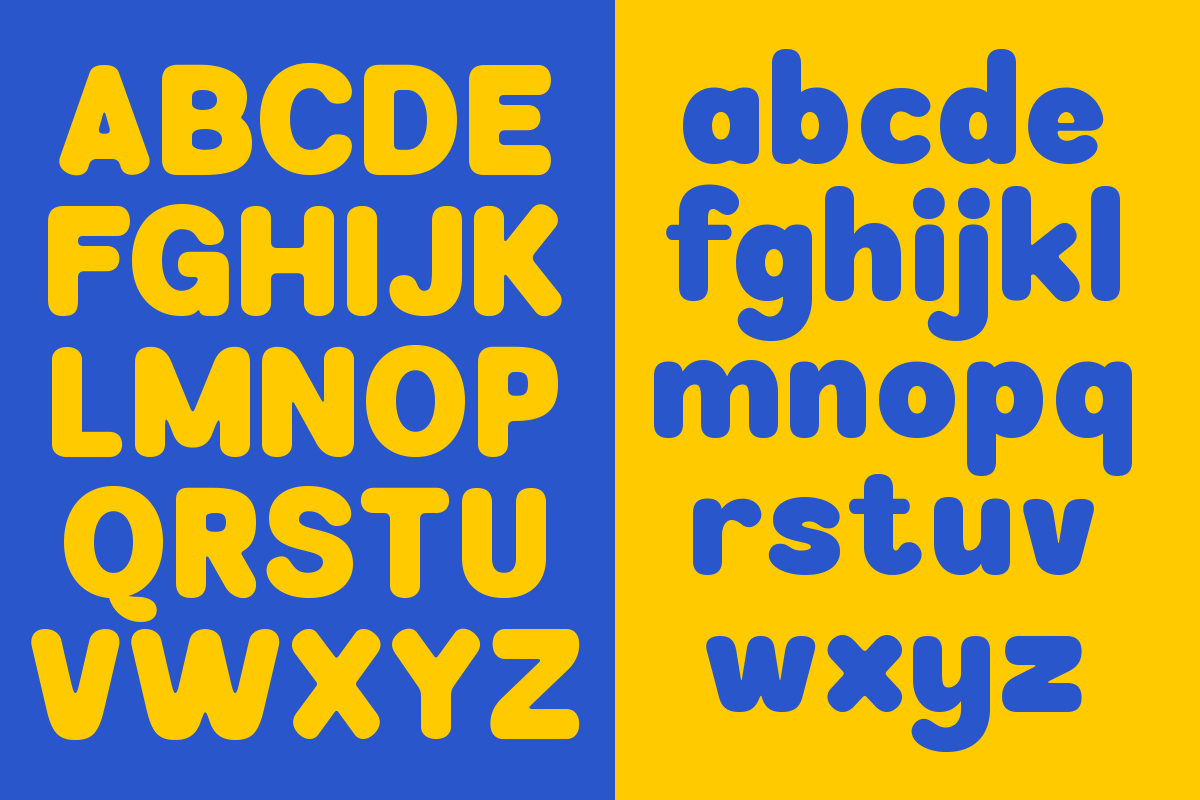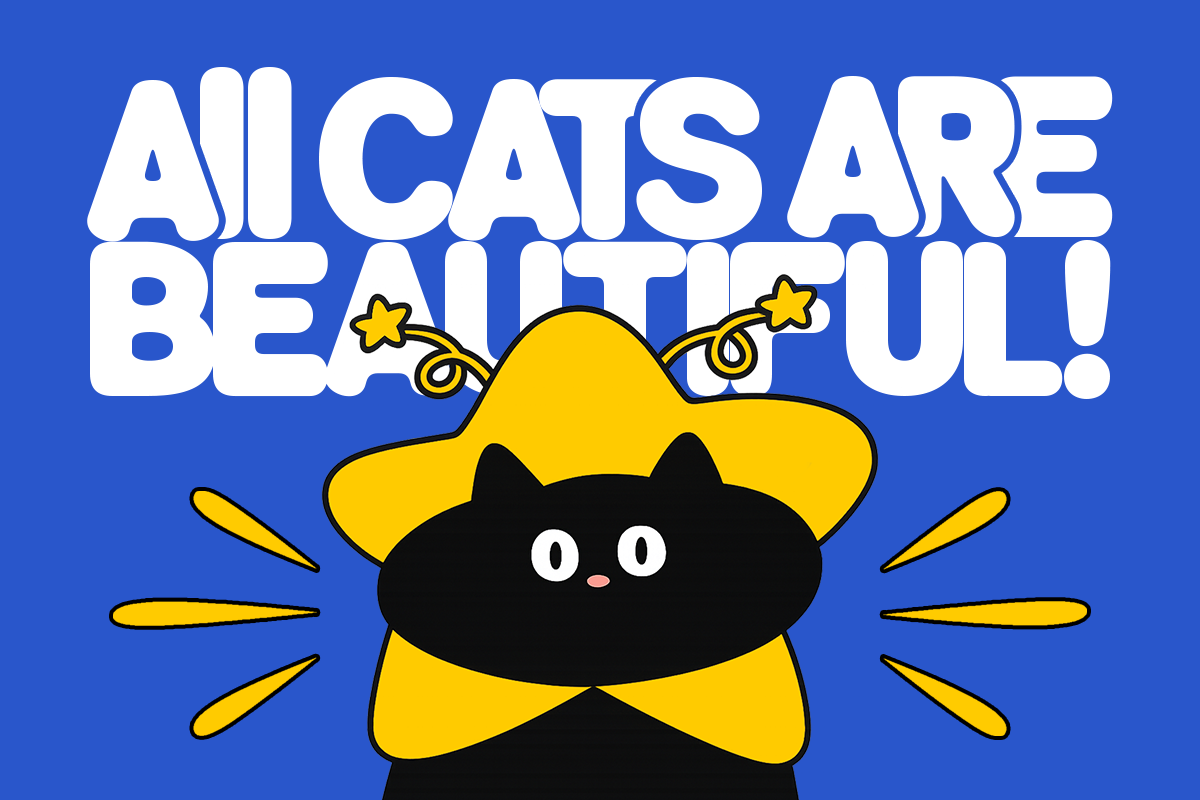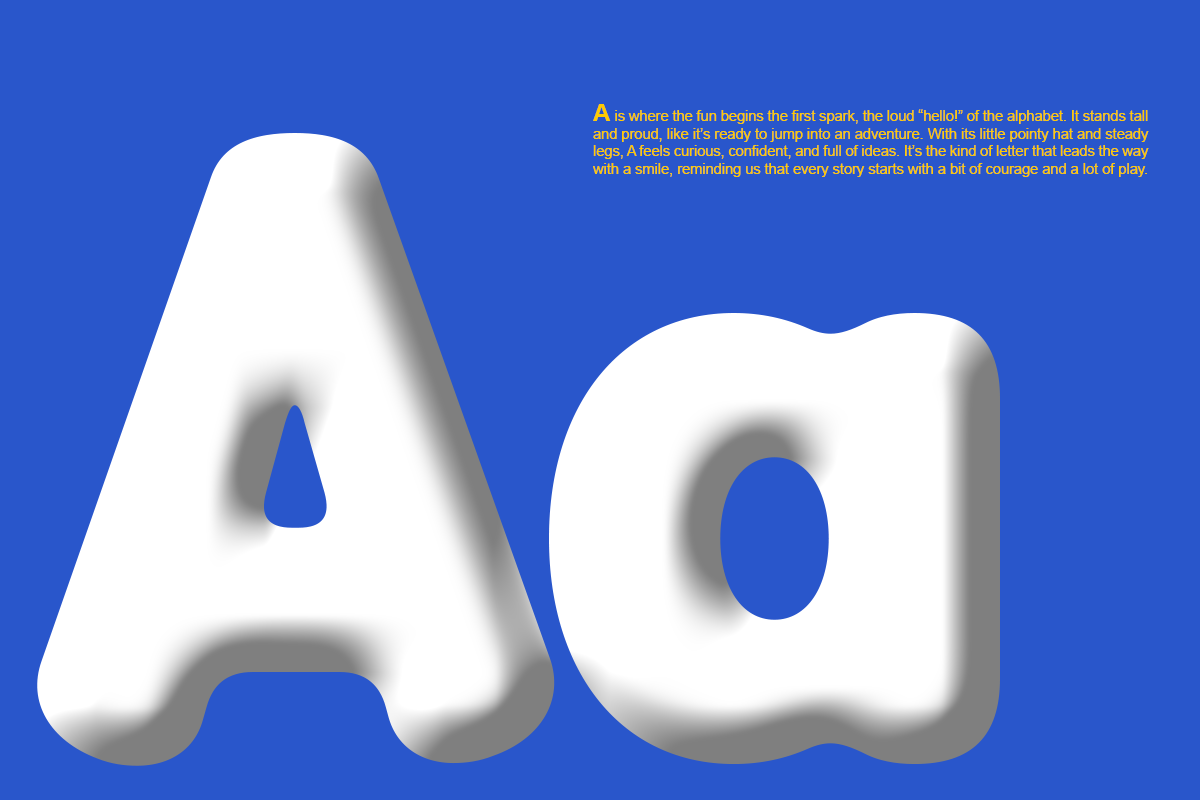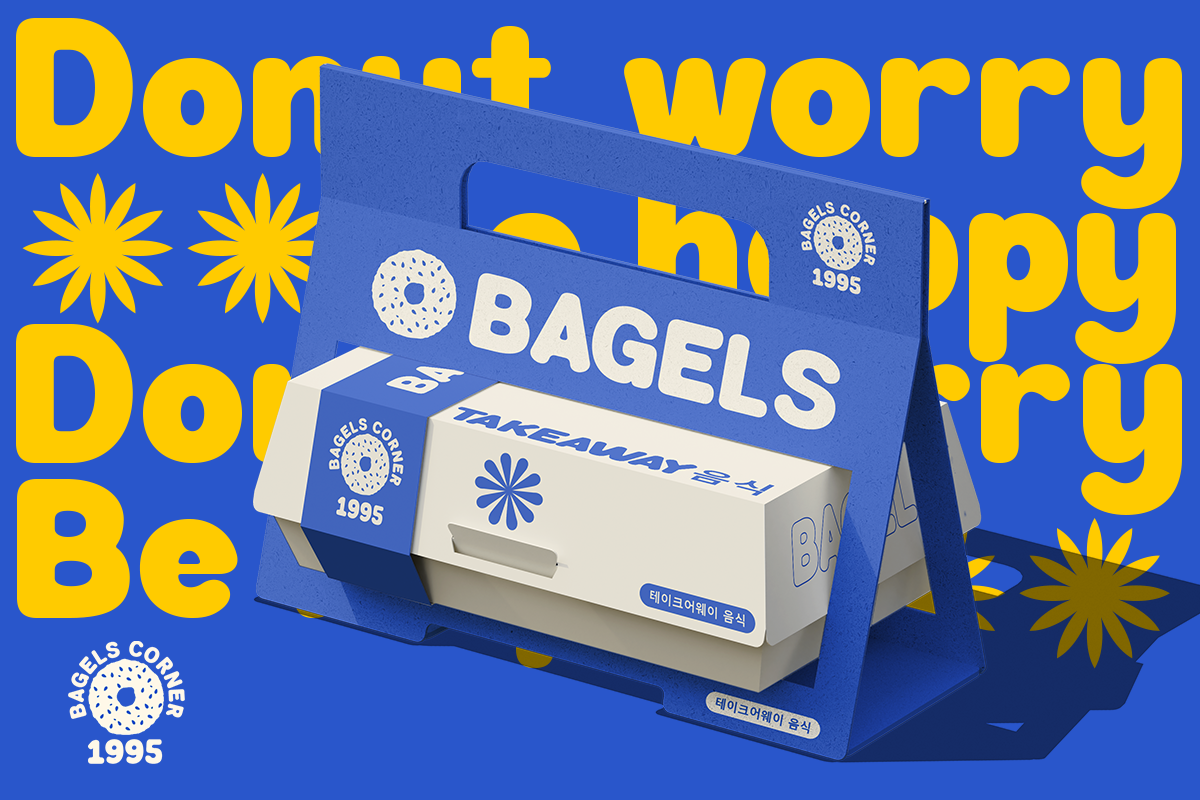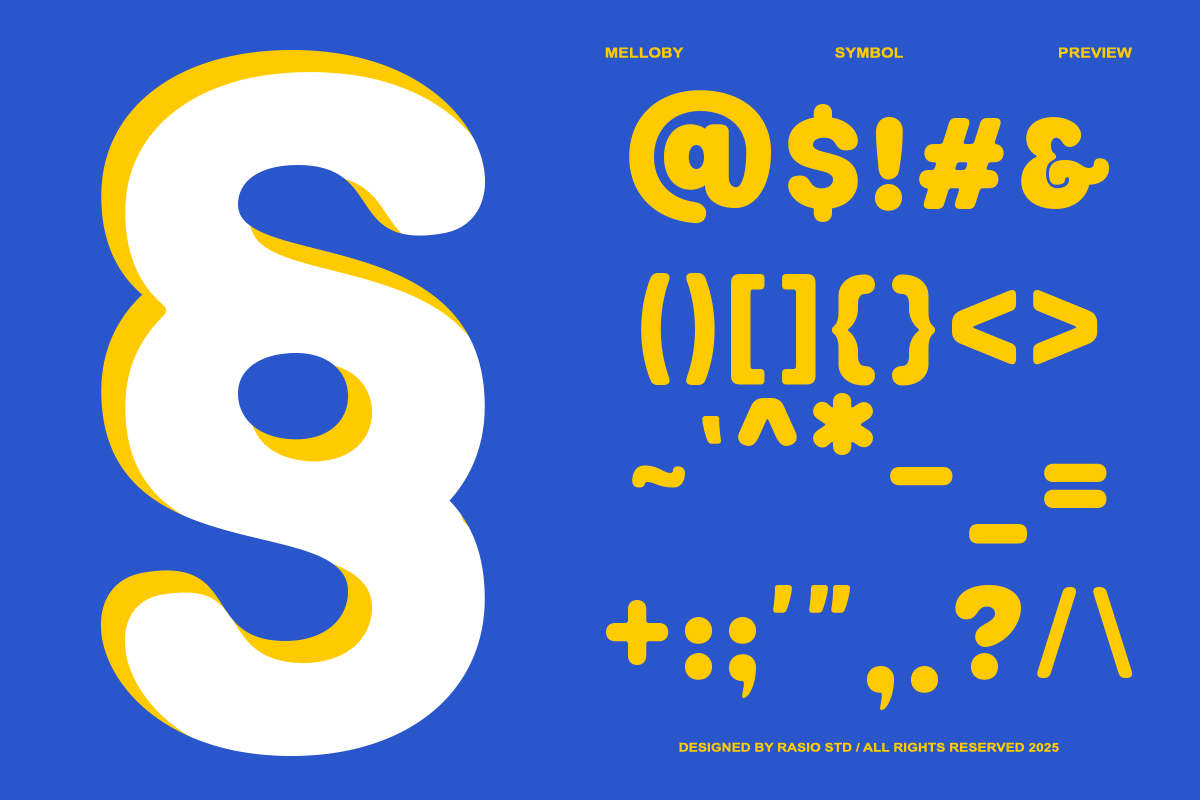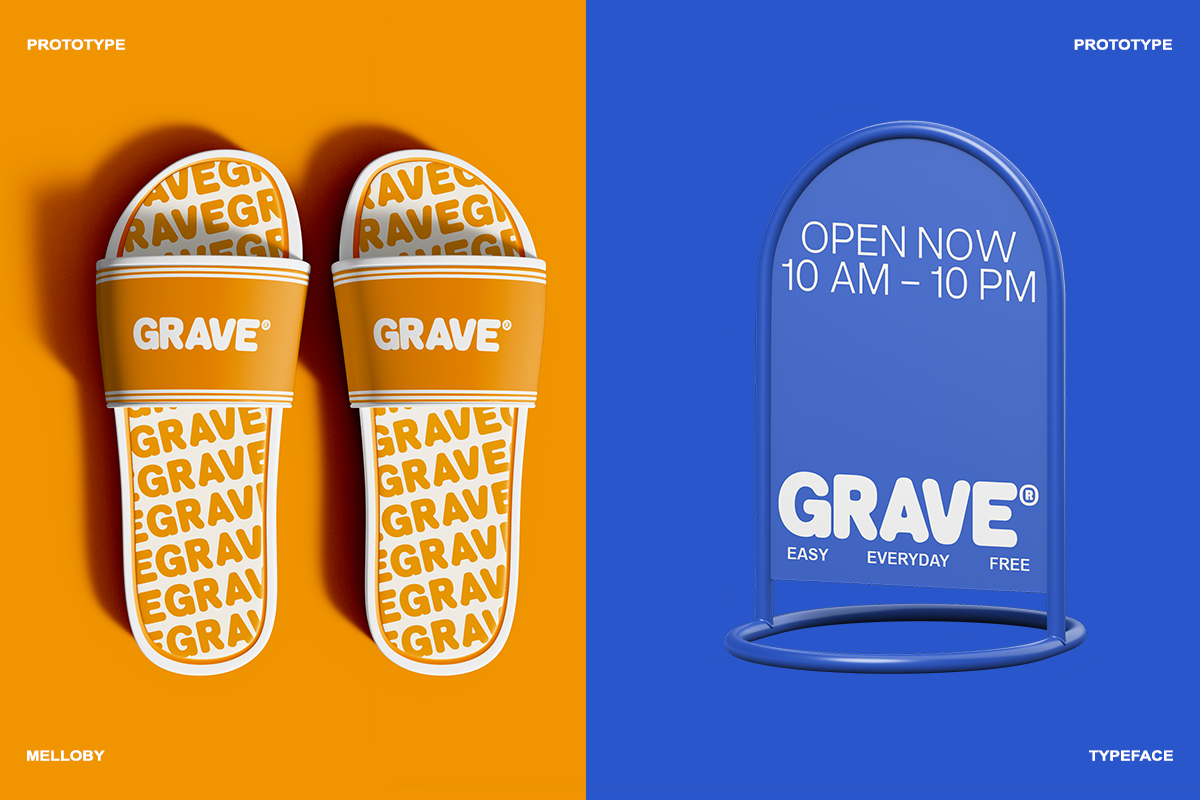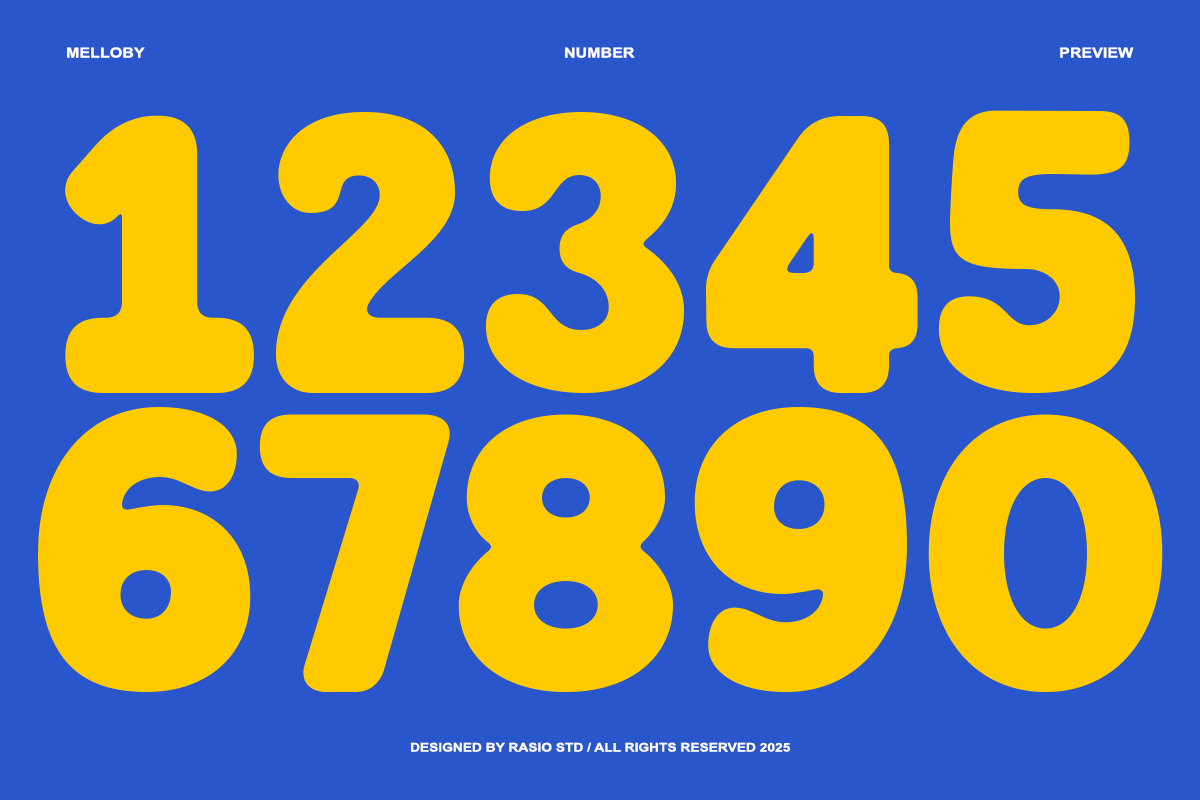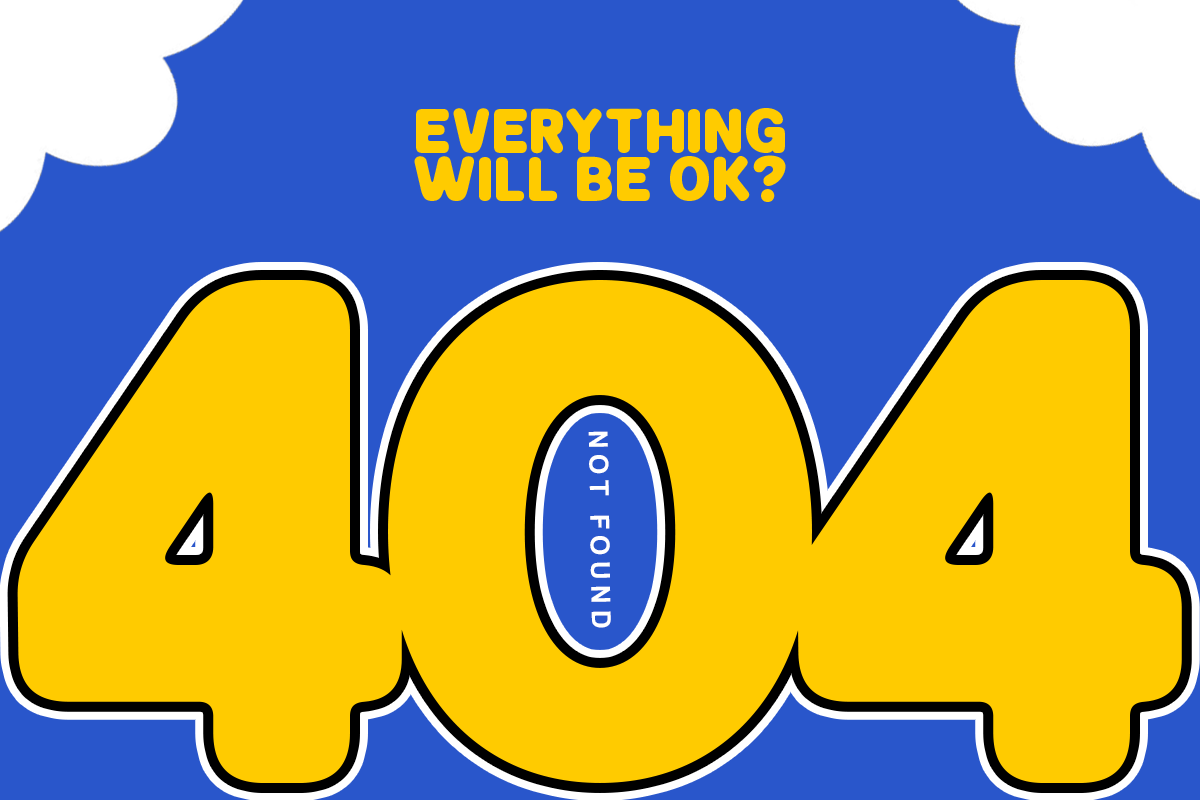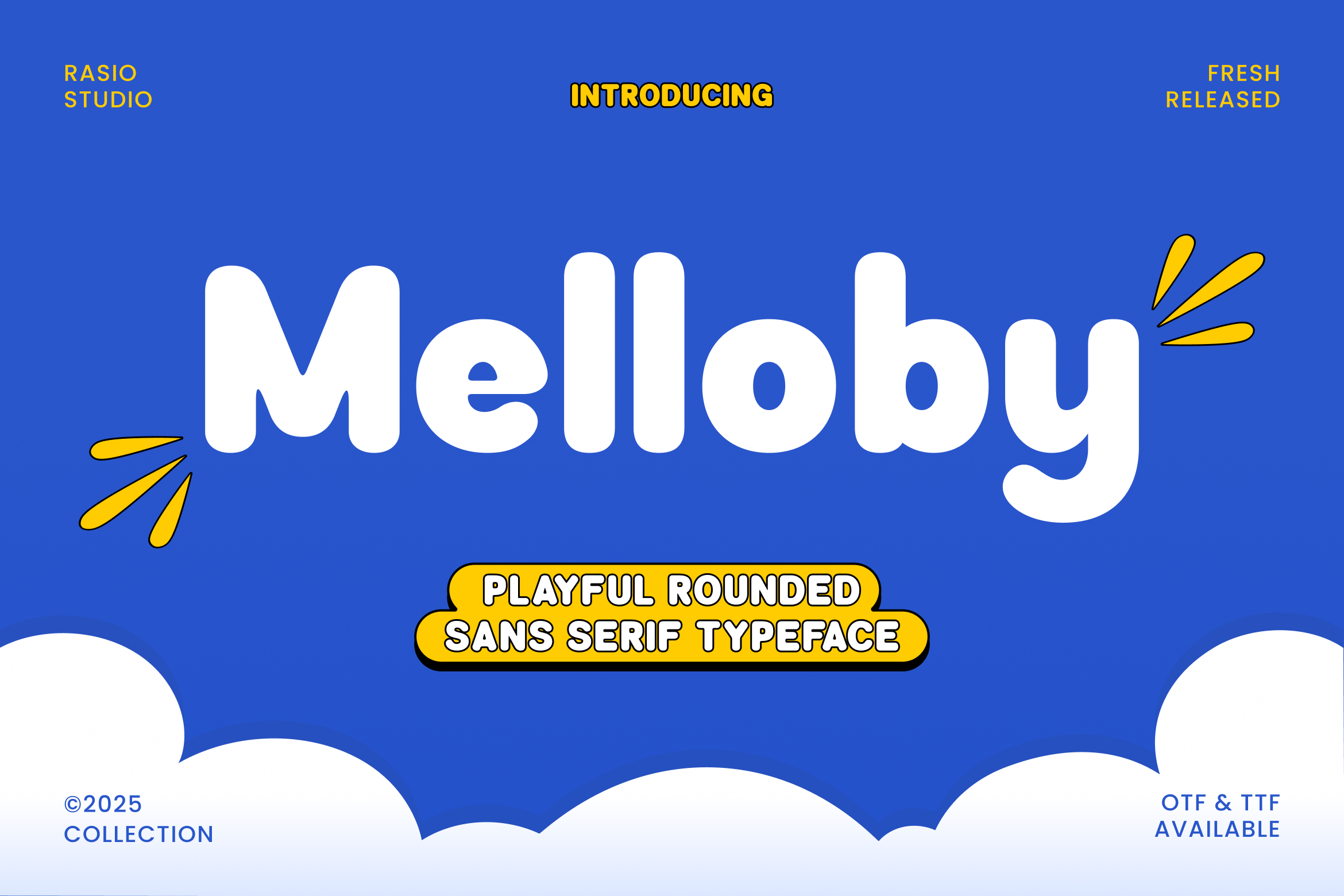
Melloby Playful Rounded Sans Font
Melloby is a playful rounded sans serif typeface designed to bring joy, warmth, and personality into your designs. With its soft curves, bubbly structure, and friendly proportions, Melloby delivers a bold yet approachable presence that instantly captures attention. Built with thick, smooth strokes and rounded terminals, this typeface is perfect for cheerful branding, children’s projects, modern packaging, and expressive headline designs.
Melloby is highly relevant for designers who need bold, cheerful typography with a friendly personality. It works beautifully for children’s brands, toy packaging, snack labels, educational materials, YouTube thumbnails, social media graphics, event posters, and modern lifestyle branding. Its rounded structure creates an inviting and positive tone, making it ideal for projects that aim to feel warm, energetic, and approachable.
- Bold rounded construction with soft, bubbly geometric forms
- Smooth, fully curved terminals for a friendly and approachable feel
- Thick and consistent stroke weight for strong display impact
- Playful letter proportions that enhance warmth and personality
- Clean interior spacing that keeps characters clear and readable
- Children’s brand identity systems with a cheerful tone
- Toy packaging, snack labels, and fun product branding
- Educational materials and learning platforms
- YouTube thumbnails and playful social media graphics
- Event posters, birthday themes, and party invitations